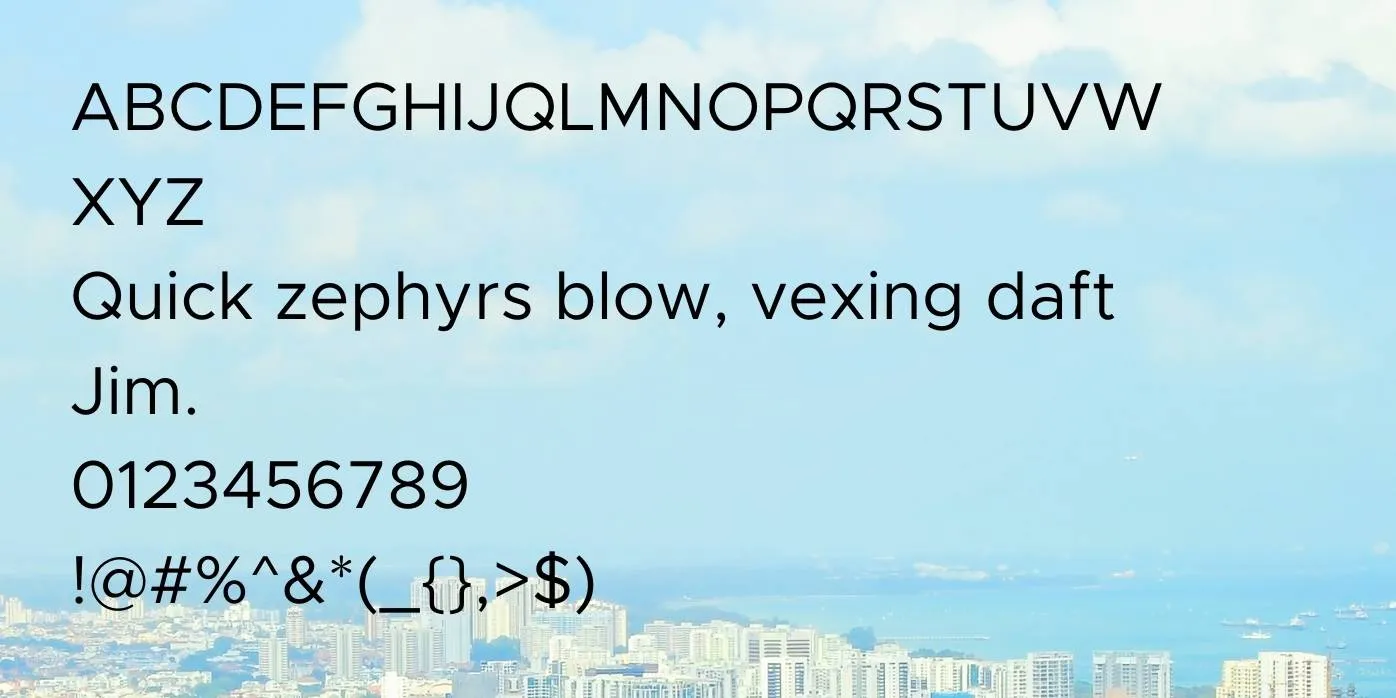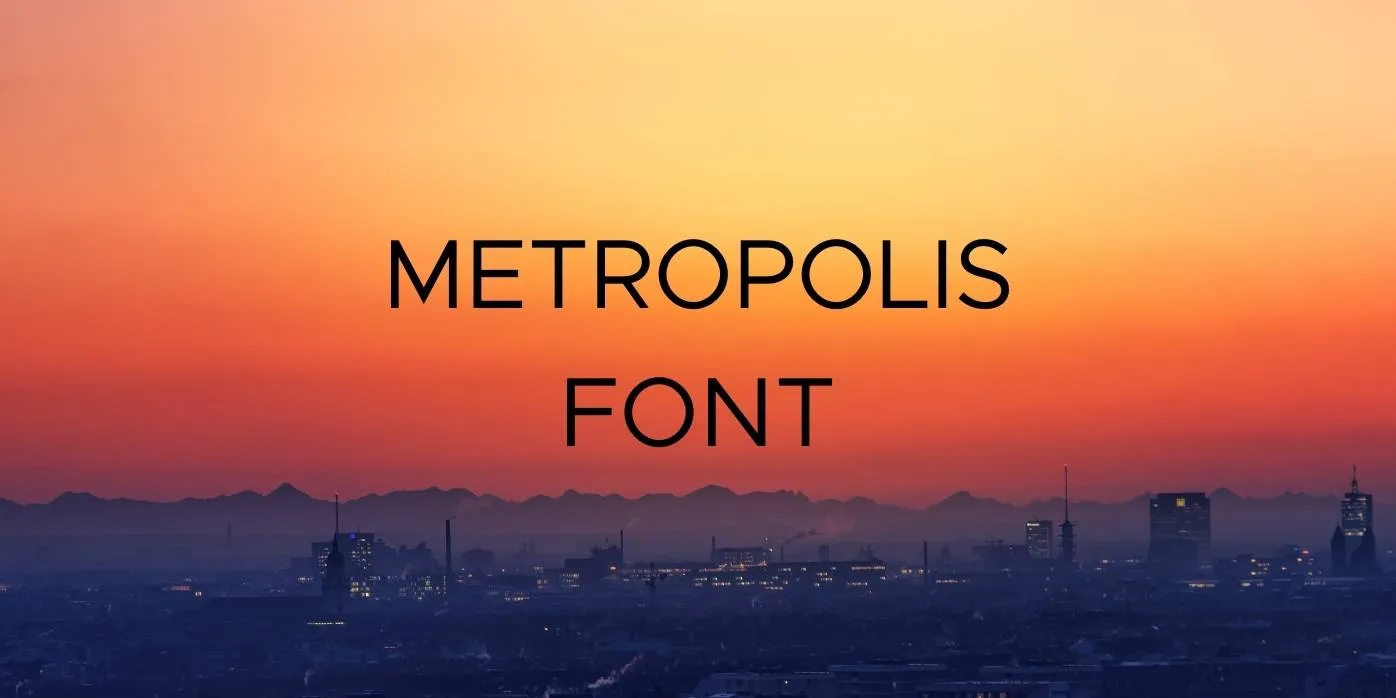
Metropolis Font
Metropolis font is a proud member of the CSS family. This typeface is famous for its pairing function and also for its use in adobe and it is similar to the art deco font. The designer of this typeface is Chris Simpson. It has grown to be as fast as created for the primary creator within the dust just like the uni sans font.
And this quantity has improved each day with modern-day. It has many styles and weights include Thin, Regular, Bold, Black, Light, etc. And all weights can be fit with Italic styles. The number one is a font that is created with the beneficial content cloth of the usage of this font.
He took the concept from the beginning. This font is used for t-blouse printing and logo designing skills. The font family is free for personal use and has an OTF feature.  Usage Every shape of the typeface has a ubuntu font.
After seeking out one’s abilities, in case you are seeking out an improvement to them then we’ve got were given to were given now, in fact, the proper statistics for you. You may also generate this typeface with the generator tool even without downloading. However, This typeface is advantageous for You assignments as Heading or Titling and Body text as well. You can also use it in your storybooks as Book Cover or content.
You may also generate this typeface with the generator tool even without downloading. Who owns the Metropolis Font? Metropolis is the beautiful sans serif typeface that is good for any kind of design project. The designer of this typeface is Chris Simpson.